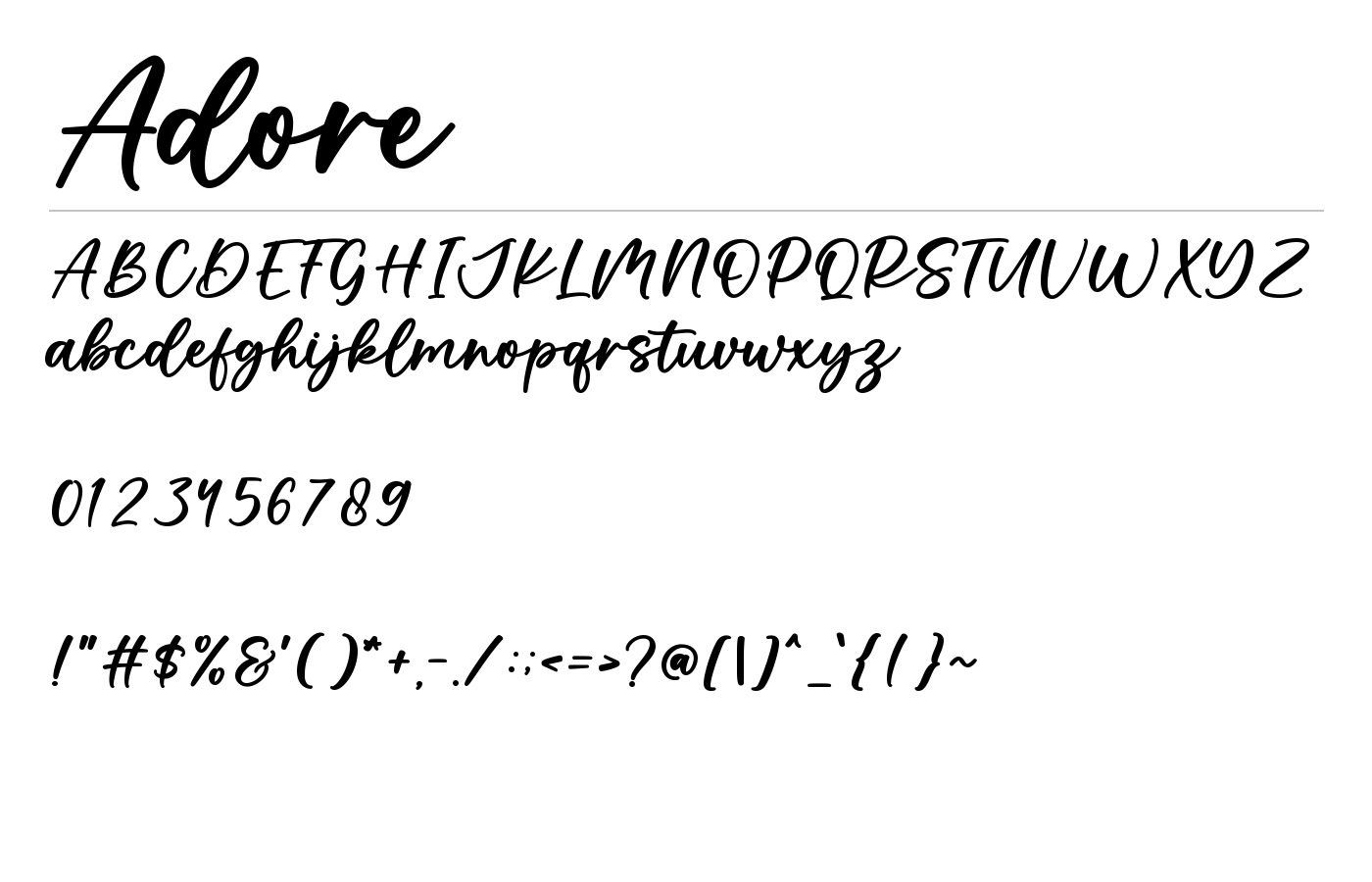
Adore is a graceful script font featuring smooth, flowing strokes that mimic elegant handwriting with a balanced medium weight and moderate contrast. Its rounded, slightly casual letterforms create a warm and approachable feel, making it perfect for branding, invitations, and stylish editorial projects. This font works well where a personal, charming touch is needed without losing readability or sophistication.
Adore Font
About Adore Font